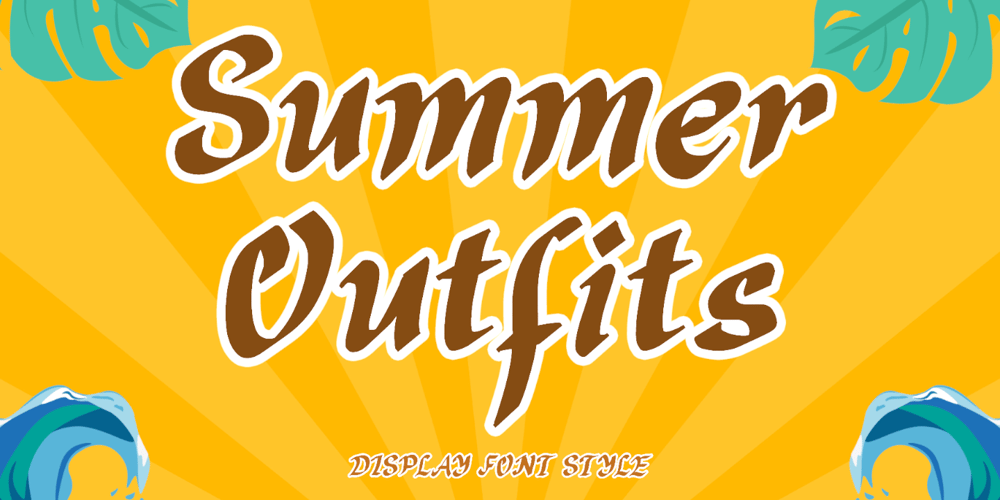
Summer Outfit Font Family was designed by Isroni Yoga Prasetya and published by Yoga Letter. Summer Outfit contains 1 styles and family package options. “Summer Outfits” is a summer-themed display font that is very suitable for your summer vacation moments. This font is equipped with uppercase, lowercase, numerals, punctuations and multilingual support. very suitable for vacation, summer, parties, camping, holidays and others.